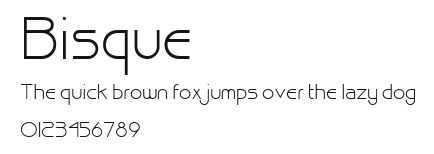
• Font Name: Bisque
• Font ID: Altsys Fontographer 3.5 Bisque Regular
• Full Font Name: Bisque Regular
• Version: Altsys Fontographer 3.5 11/23/92
• PostScript Name: BisqueFont
• Character Count: 207
About Bisque.ttf
Bisque.ttf is a modern, elegant sans-serif font designed for ultimate readability and visual harmony. Perfect for branding, headlines, web design, and print materials.